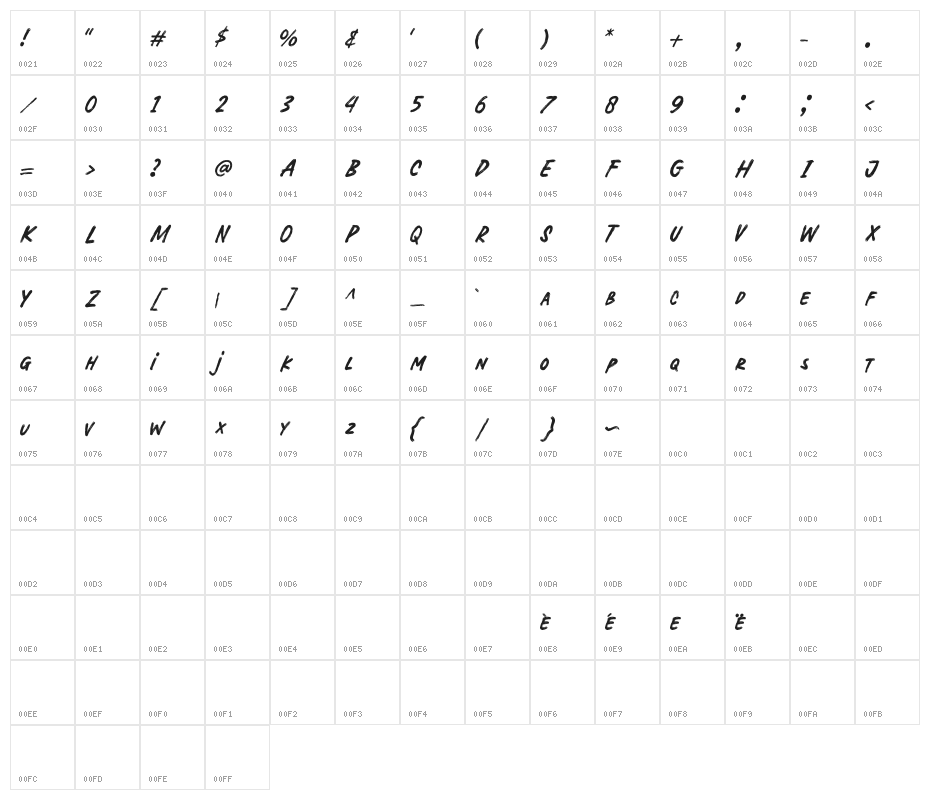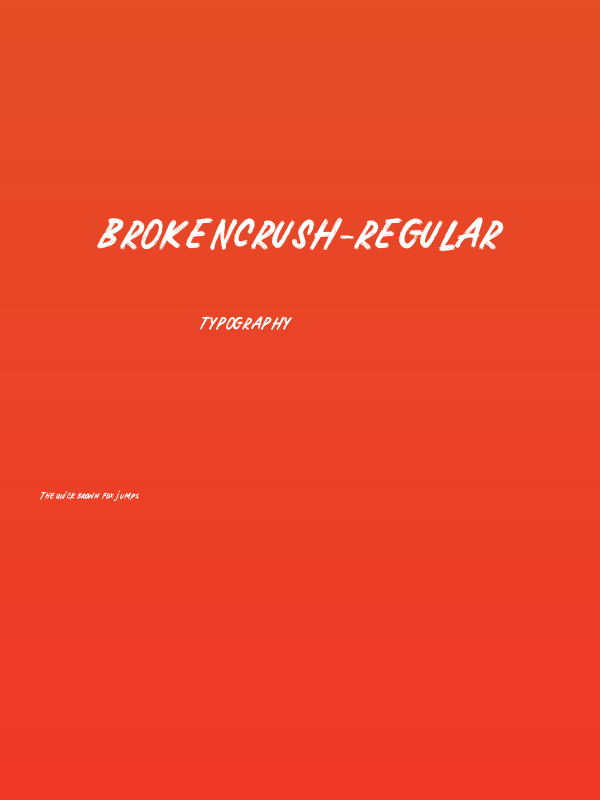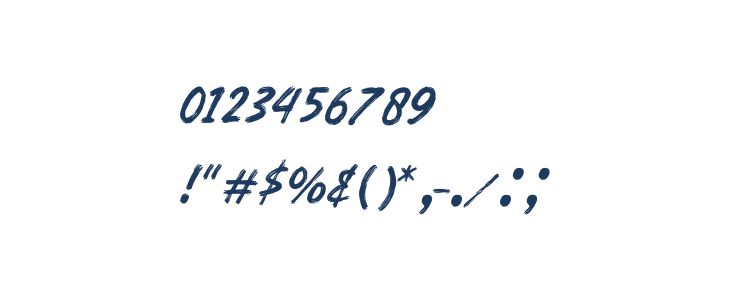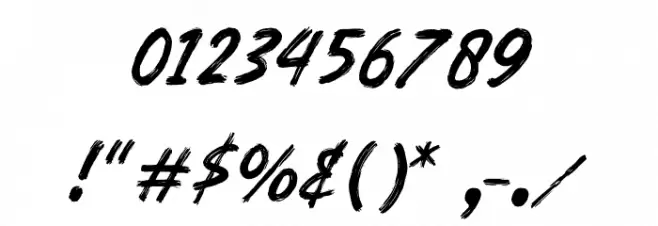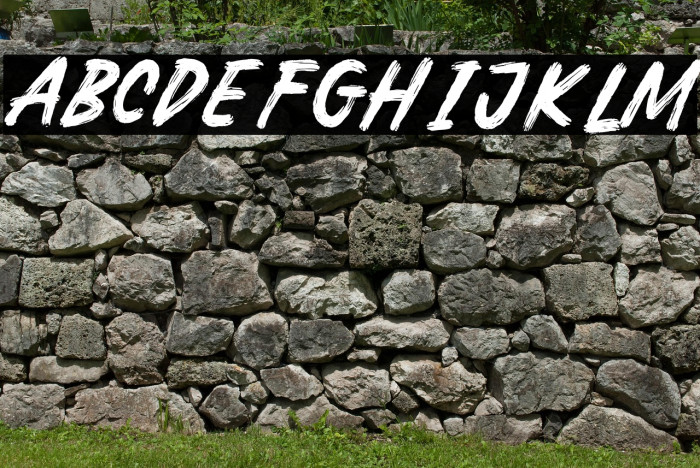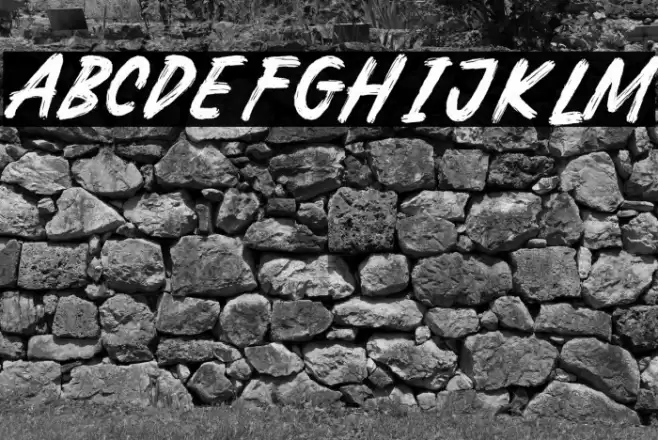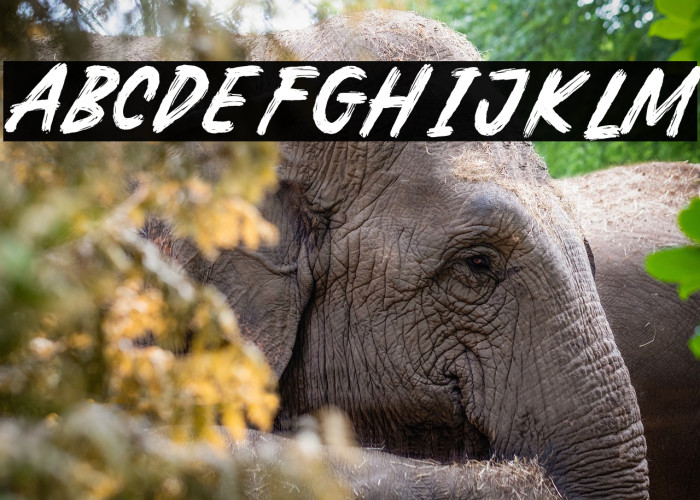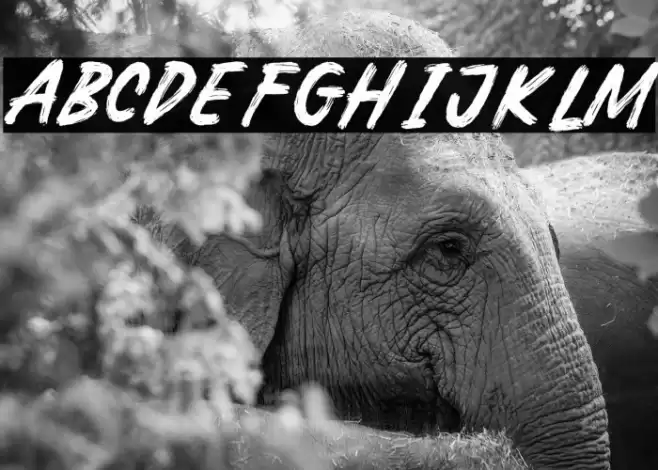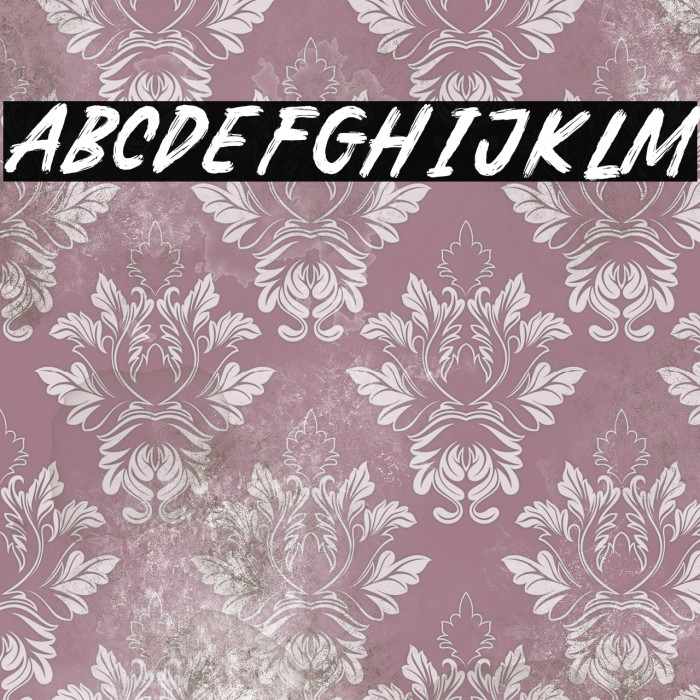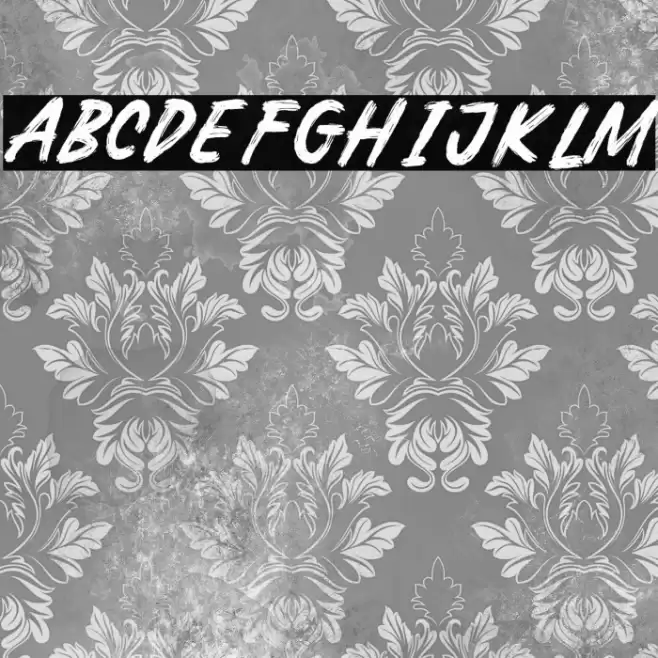
BrokenCrush-Regular Font
BrokenCrush-Regular Description
This font features a bold and dynamic brush script style, characterized by its energetic and slightly chaotic strokes. The letters have a hand-painted appearance, with varying thickness and a sense of movement that adds a lively and informal touch. The uppercase and lowercase letters maintain a consistent style, with a playful yet legible design. Numbers and special characters are included, matching the overall aesthetic. This font is ideal for projects that require a personal, artistic flair, such as posters, invitations, or branding that seeks to convey creativity and spontaneity.
| Proposed Projects | Ideal for posters, invitations, artistic branding, and creative projects. |